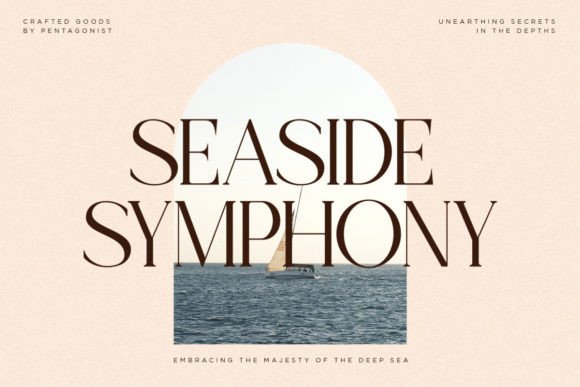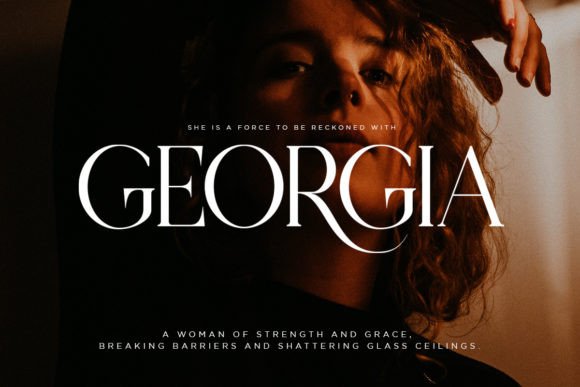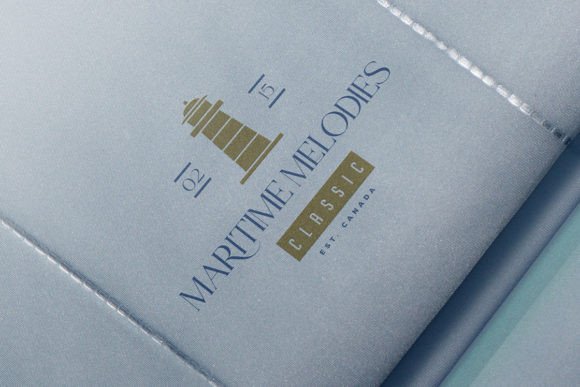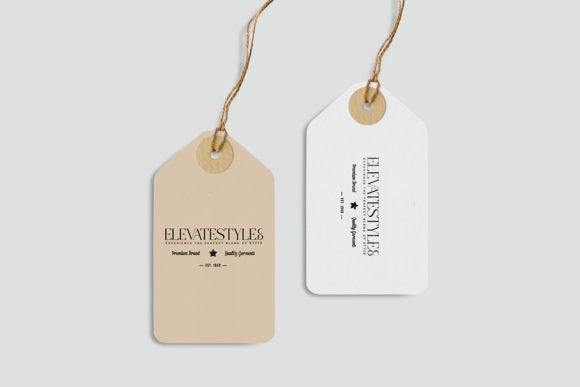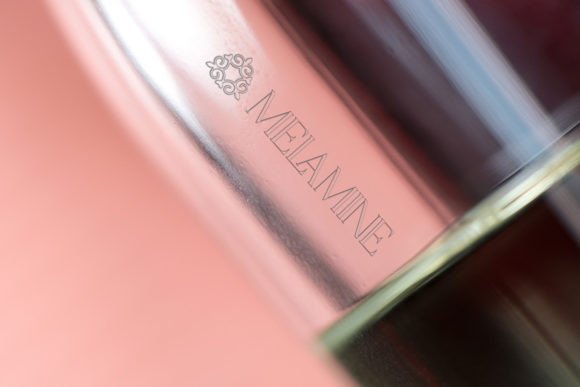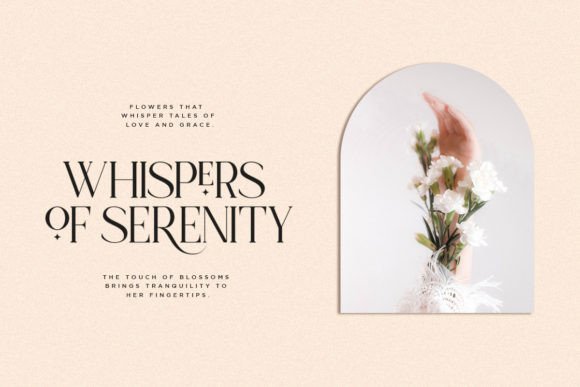
Introduction to Koela Font
Koela Is A Modern Serif Font with Stylistic Alternates and Ligatures.
Modern serif font with exciting variations Bring a little magic or romance to your workโa fun twist on a classy serif fontโs traditional look and feel.
Key Features of Koela Font